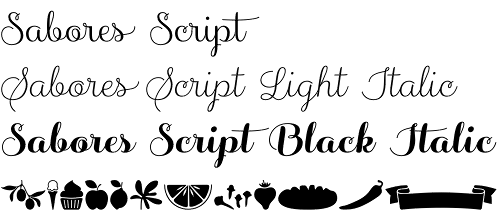
Sabores Script
Sabores Script is an upright connected script font family characteristic with its extremely friendly appearance and the round soft letterforms. The idea behind it came from the flavors and spices used in cooking – a source of ideas that is quite well exploited but also one that never fails to deliver more and more. There are a lot of things that make Sabores Script unique. First of all, it covers wide contrast range which is something really rare for script face. Then, the great way the letters are literally flowing from one to the other, mainly due to its elegant connections. And, of course, the fact that despite being very original and playful, Sabores Script retains high legibility through its open counters and the good balance between thin and thick strokes. All in all, the typeface’s appearance makes it perfect for use in all kinds of projects related to cooking and good food – restaurants, coffee shops, bakeries, menus, food packaging etc. However, that doesn’t deplete all the possible applications as there are many more like elegant titles, wedding and birthday cards, invitations, wine labels, T-shirts and posters.
As it was mentioned above, Sabores Script covers remarkable contrast range for its kind. It comprises of 5 weights – Light, Regular, Semibold, Bold and Black. Each of them comes with its slanted version sold as separate font. Those could be combined with great success which will give the users limitless choices. Also there is an additional font with stylish illustrations and many more extras like lots of OpenType features, swashed initial letters, fancy ligatures and so on.
Sabores Script is created by the Brazilian designer Sofia Mohr. Originally an architect, she choose the type and graphic design as her profession and soon made great progress. Indeed her debut Café Brasil was so impressive that we included it in our selection of the 15 great font debuts on MyFonts – 2014. Also, here is her other typeface you can take a look at – Nido.